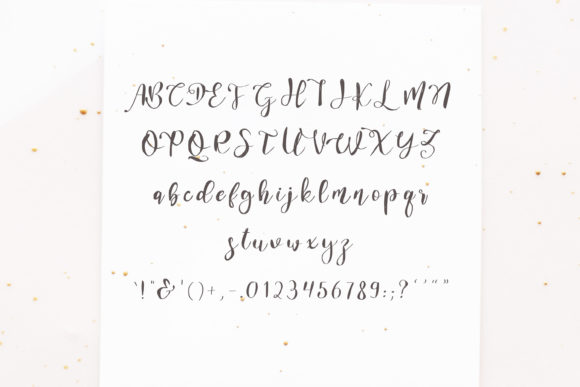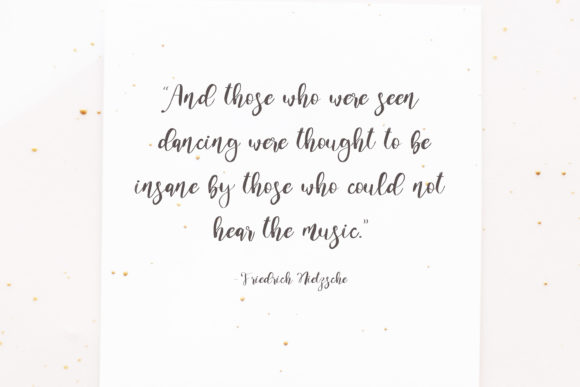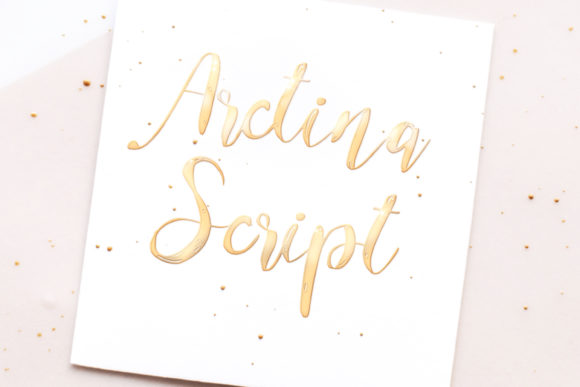
Discover the Charming Arctina Font: Elevate Your Creative Projects with Authenticity
In the realm of digital typography, few fonts manage to capture the essence of handcrafted authenticity as beautifully as the Arctina Font. This stunning typeface emerges from the harmonious pairing of a brush pen and pencil, bringing forth a unique blend of elegance and whimsy. Whether you’re a designer looking to enhance your Instagram feed or a crafter seeking the perfect calligraphy script for your DIY projects, Arctina Font is poised to transform your creative ideas into true pieces of art.
The Genesis of Arctina: A Blend of Traditional and Digital
Arctina’s distinctive charm lies in its origin. Crafted with a combination of brush pen and pencil, this font embodies a level of personal touch and warmth that is often lost in digital typography. The soft strokes of the brush pen merge with the precision of the pencil, creating a font that is not only visually appealing but also rich in character. This blend of traditional techniques with digital accessibility makes Arctina a versatile tool for a wide range of creative applications.
Why Arctina Stands Out
- Authentic Aesthetic: Arctina’s unique creation process gives it an authentic, handcrafted look that sets it apart from more conventional digital fonts. Its letters seem to dance on the page, imbuing any project with a sense of movement and life.
- Versatility: Whether you’re designing for social media, crafting invitations, or working on more extensive design projects, Arctina’s versatility shines. Its friendly and approachable vibe makes it suitable for a broad spectrum of creative endeavors.
- Ease of Use: Despite its sophisticated appearance, Arctina is remarkably easy to use. Designers and crafters can effortlessly integrate it into their projects, enhancing their work with a professional yet personal touch.
Applications of Arctina Font
Arctina’s flexibility and charm make it an excellent choice for various applications:
- Instagram and Social Media: Elevate your social media presence with eye-catching posts and stories. Arctina’s unique style is sure to capture the attention of your audience and make your feed stand out.
- DIY Projects: From handmade cards to personalized gifts, Arctina adds a touch of elegance and whimsy to any DIY project. Its calligraphy script is perfect for adding that extra special something to your creations.
- Graphic Design: For graphic designers, Arctina offers a fresh and distinctive font option for client projects. Its unique aesthetic can help differentiate your work and leave a lasting impression on clients and their audiences.
Tips for Maximizing Arctina’s Potential
To get the most out of Arctina Font, consider the following tips:
- Experiment with Sizes: Arctina’s beauty shines at various sizes. Experiment with different font sizes to find the perfect balance for your project.
- Play with Colors: The font’s handcrafted nature lends itself well to creative color choices. Don’t be afraid to experiment with different colors to match your project’s aesthetic.
- Mix and Match: Arctina pairs well with a variety of other fonts. Try combining it with contrasting typefaces to create visually interesting and dynamic designs.
| Font Name | Arctina Font |
| Author | DIGI Potwor |
Arctina Font is more than just a typeface; it’s a tool for bringing your creative visions to life. Its unique blend of traditional craftsmanship and digital accessibility makes it a valuable asset for designers and crafters alike. Whether you’re looking to add a personal touch to your DIY projects or seeking a distinctive font for your design work, Arctina is sure to exceed your expectations. Embrace the charm of Arctina Font and watch your creative projects transform into authentic pieces of art.